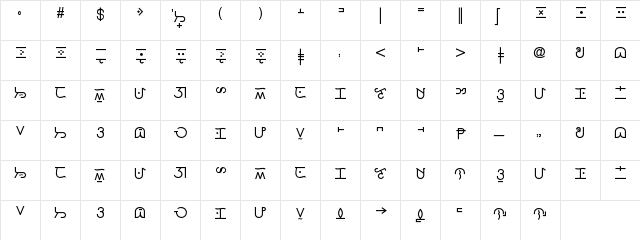
Pambatangge Regular
Design Context for Pambatangge Typeface
Pambatangge takes a measured approach to typography — its balanced proportions and neutral character make it a reliable workhorse for both digital and print work.